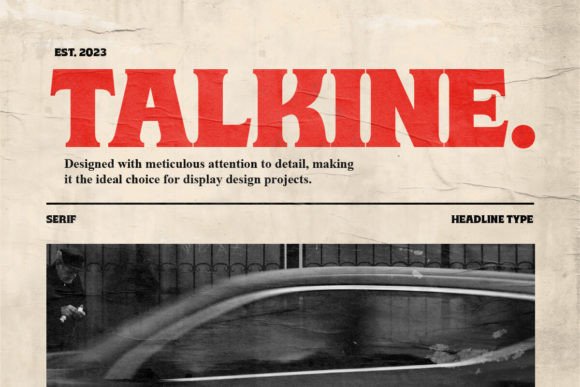
Introducing Talkine Font, the ultimate slab serif font designed to captivate and inspire. Created by the talented saridezra, this font is the perfect choice for those seeking a font that truly makes a statement.
With its bold and eye-catching design, Talkine Font is ideal for creating stunning magazine covers. Its unique alternates add an extra touch of creativity, allowing you to craft captivating headlines that demand attention. Let your words leap off the page and make a lasting impression on your readers.
But Talkine Font isn't limited to just magazine covers. Its versatility extends to a wide range of projects, especially those with a vintage or rough aesthetic. Whether you're working on a logo, poster, or website design, this font will add a touch of authenticity and character to your creations.
One of the standout features of Talkine Font is its support for multiple languages. Break down language barriers and reach a global audience with ease. This font ensures that your message can be communicated effectively, no matter where your audience is located.
When you download Talkine Font, you're not just getting a font – you're unlocking a world of creative possibilities. Its distinctive slab serif style combined with its alternates allows you to unleash your imagination and bring your designs to life. Let your creativity flow and watch as your projects stand out from the crowd.
Experience the power of Talkine Font today and elevate your designs to new heights. Its captivating and emotional appeal will leave a lasting impression on your audience. Don't settle for ordinary fonts when you can have something truly extraordinary.